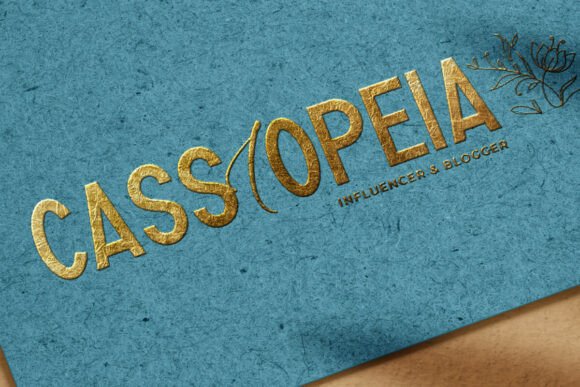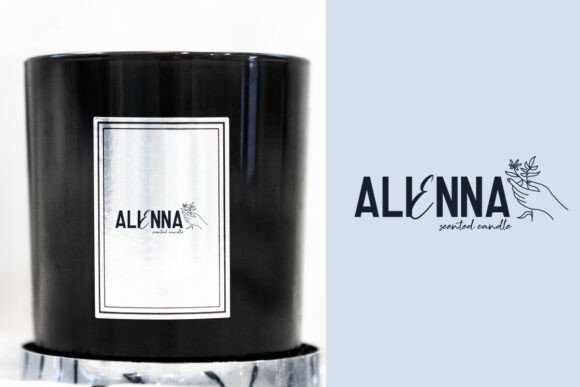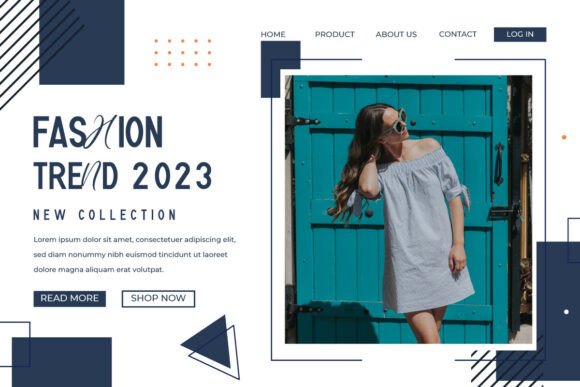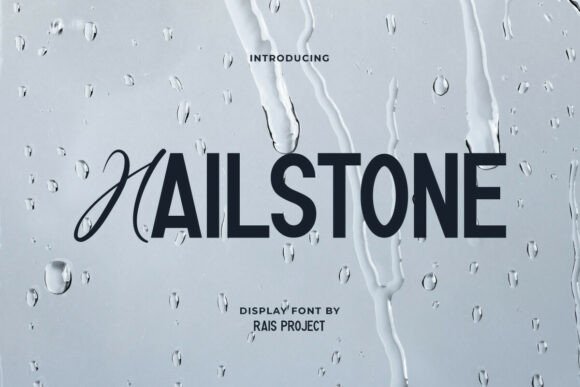
Introduction to Hailstone Font
Hailstone is a modern combination display font designed by RaisProject.
It will be good for any designs, such as brand image, cover, custom design, flyer, invitation, label, magazine, marketing material, menu, poster, product packaging, quotes, signage, stationery, website page, and more Hailstone Display Font including a complete set of basic Uppercase and Lowercase characters, Numerals, and large range of Punctuation.